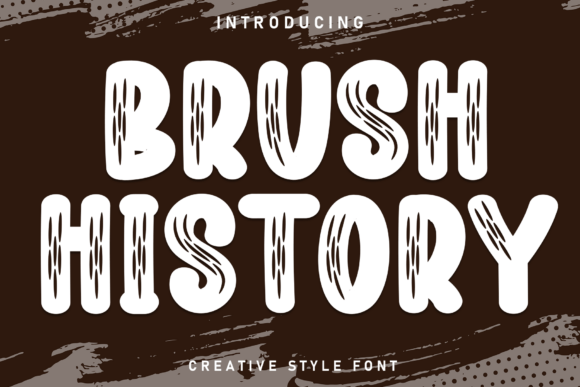
Unleash Your Creative Expression with Brush History Font
Have you ever found yourself stuck in a design rut, yearning for that perfect touch of elegance and personality in your work? For many creatives, the quest for unique and captivating typography is a never-ending journey. It’s a moment like this that led us to discover the Brush History Font, a special creative product designed to elevate your designs to the next level.
This exquisite font is more than just a tool – it’s an experience. With its latest style letters, you can add a touch of sophistication to your wall displays, wedding invitations, social media posts, and more. The Brush History Font is a valuable asset for designers, offering a range of benefits that make it a must-have in your creative arsenal. From its ease of installation to its compatibility with popular design software, this font is the perfect companion for any project that requires a touch of handmade charm.
Key Features of Brush History Font
- Font Family: A unique, hand-drawn font that mimics the look of historical brushstrokes.
- Unique Characteristics: Each letter is carefully crafted to resemble the texture and movement of a brushstroke, adding a touch of organic elegance to any design.
Designer Review: Brush History Font
I’ve had the chance to work with Brush History Font recently, and I must say it’s an interesting addition to the typography world. ✨ One thing that stands out is its unique and eclectic mix of brushstrokes and handwritten elements, which can add a touch of personality to any design project.
The font has a good range of weights, from light to bold, making it versatile for different design needs. ✨ Additionally, the font’s high x-height and relatively narrow width make it easy to read in body copy. ✨ I also appreciate the font’s ability to create a cohesive look when used with other brush fonts or handwritten styles.
However, I do have a few concerns: ⚠️ The font’s irregularities and variations can sometimes be inconsistent, which may be a problem for designers who prefer a more uniform look. ⚠️ Additionally, some characters may not be as legible as others, especially in smaller font sizes. ⚠️ The font also lacks a clear hierarchy of styles, which can make it harder to use in complex designs.
Overall, Brush History Font is a great choice for designers looking to add a touch of whimsy and personality to their work. While it has its limitations, it’s a solid addition to any font library.
- Pros:
- Unique and eclectic mix of brushstrokes and handwritten elements
- Good range of weights
- High x-height and relatively narrow width
- Cons:
- Inconsistent irregularities and variations
- Some characters may not be as legible as others
- Lacks a clear hierarchy of styles
The Brush History Font is ideal for:
- Adding a personal touch to illustrations and designs.
- Creating unique and eye-catching presentations.
- Adding a handwritten touch to documents and reports.